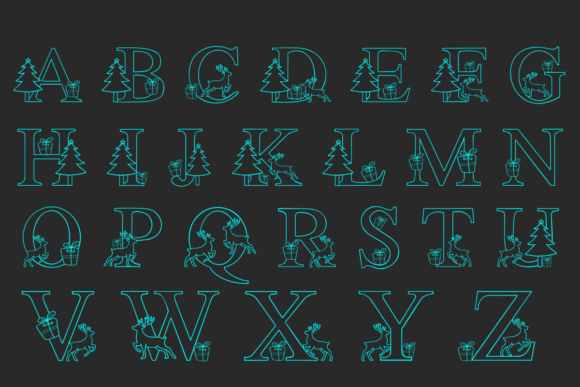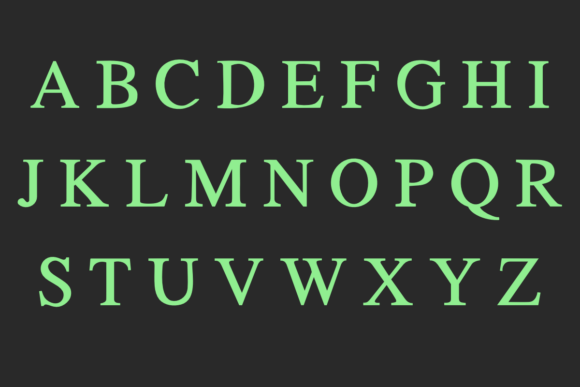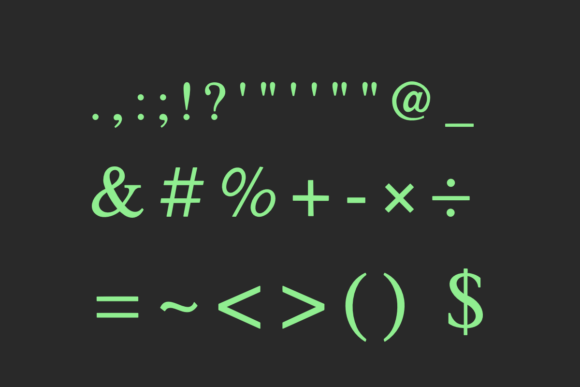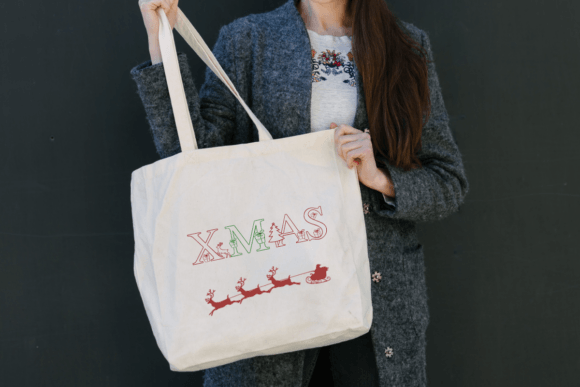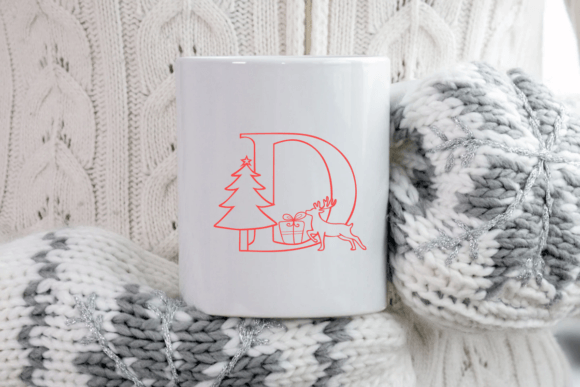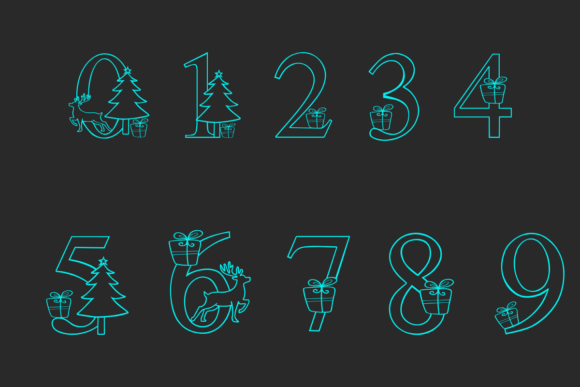
Introduction to Chrismas Deer Font
As the snowflakes start to fall and the fireplace crackles to life, the holiday season is in full swing. For designers, this is the perfect time to get creative with festive projects that capture the magic of Christmas. Whether you’re crafting holiday cards, designing seasonal banners, or working on a Christmas-themed branding campaign, the right font can make all the difference. That’s where the Chrismas Deer Font comes in – a delightful, high-quality design resource that adds a touch of whimsy and wintery charm to any project.
This beautiful, free font features uppercase letters adorned with minimalist Christmas icons, including deer, Christmas trees, and gift boxes. With its simple yet elegant design, it’s perfect for designers who want to add a traditional Christmas vibe to their creative projects. Plus, its transparent background makes it easy to use in a variety of design contexts, from digital to print. If you’re looking for a design resource that’s both fun and functional, look no further than the Chrismas Deer Font.
Key Features of Chrismas Deer Font
- Unique, festive design perfect for creative projects related to Christmas and winter seasons
- Transparent background allows for seamless integration with various design elements and backgrounds
- Perfect for use in greeting cards, posters, invitations, and other print materials related to Christmas and winter celebrations
Honest Review: Chrismas Deer Font
As a designer, I was excited to dive into the Chrismas Deer Font and see if it could bring some magic to my creative projects. After a thorough review, I’m happy to share my thoughts on this design resource.
- The font is beautifully designed, with a clear and recognizable deer face that’s perfect for Christmas-themed projects.
- The high quality of the font is evident in its crisp lines and smooth curves.
- The transparent background option makes it easy to use this font in a variety of design contexts.
- The font is quite large and may not be suitable for projects that require smaller text sizes.
- The design is quite specific to Christmas, so it may not be as versatile as other fonts.
Overall, I’m impressed with the Chrismas Deer Font. While it may have some limitations, its unique design and high quality make it a great addition to any designer’s toolkit. If you’re working on a Christmas-themed project, this font is definitely worth a look.
Chrismas Deer Font is perfect for holiday-themed designs, such as Christmas cards, gift tags, and invitations. You can also use it for creative projects, like digital art and graphic design. With its high-quality design and transparent background, Chrismas Deer Font is a valuable resource for any designer or artist.